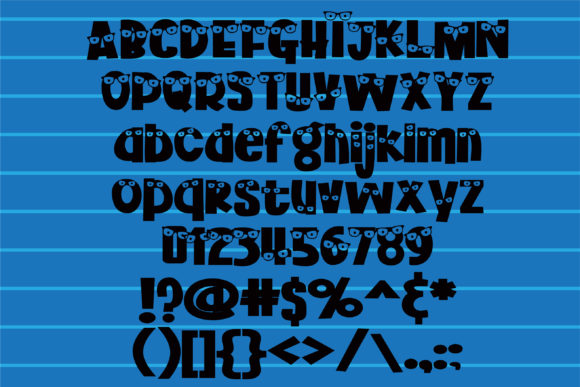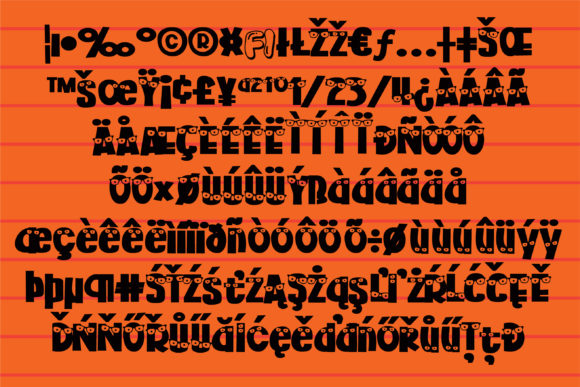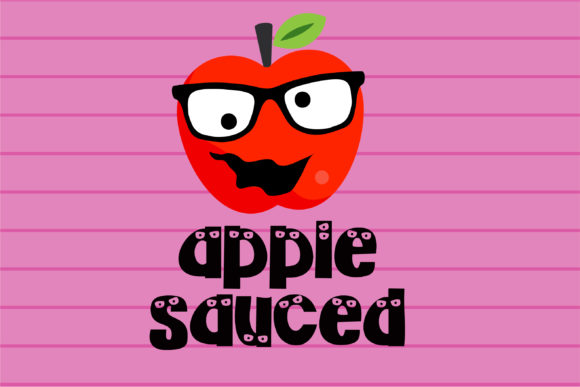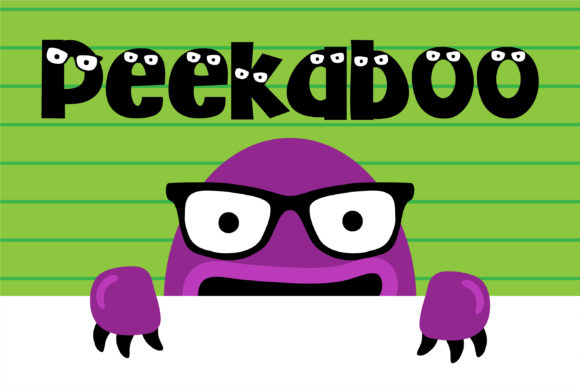
Meet the Font that’s Got Everyone Seeing Double
Have you ever been browsing through a design inspiration board and suddenly stumbled upon a font that makes you smile? That’s exactly what happened to me when I discovered Blinkers Font. As a designer, I’m always on the lookout for unique and playful typography to add some personality to my projects, and Blinkers did not disappoint.
Blinkers Font is a whimsical, hand-drawn typeface that features adorable eyeballs and eyeglasses throughout. Its quirky charm is sure to bring a touch of fun and whimsy to any design project. Whether you’re creating a logo, social media graphics, or even a children’s book, Blinkers Font is the perfect choice to add some visual interest and personality to your work.
- Unique Characteristics: Blinkers Font features a distinctive, hand-drawn style with subtle texture and imperfections, giving it a unique and human touch.
Blinkers Font Review
I recently had the chance to work with the Blinkers Font, and I must say it’s an interesting choice. Here are my honest thoughts:
- The Blinkers Font has a unique, playful feel to it, making it perfect for projects that need a bit of whimsy.
- The font is highly customizable, with a wide range of weights and styles to choose from.
- The font is optimized for digital use, resulting in clear and crisp text even at small sizes.
- The font may not be the best choice for serious or formal projects, as its playful nature can come across as unprofessional.
- The font’s uniqueness can also make it difficult to read at a glance, especially for longer blocks of text.
- The font’s styling options can be overwhelming, making it difficult to find the perfect combination for a project.
The Blinkers Font is a solid choice for projects that require a bit of creativity and flair. While it may not be the best choice for every project, it’s definitely worth considering for those that need a unique touch. With its customization options and digital optimization, it’s a great choice for designers looking to add some personality to their work.
To get the most out of the Blinkers font, experiment with different font sizes, colors, and combinations with other fonts. You can also use the font in conjunction with bold or italic text to add emphasis.
The Blinkers font is commonly used for:
- Special event branding and marketing materials
- High-end product packaging and labels